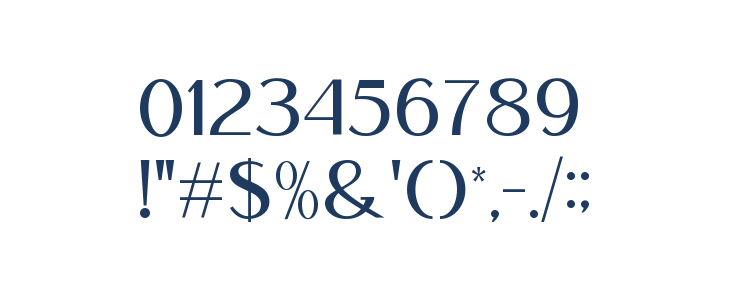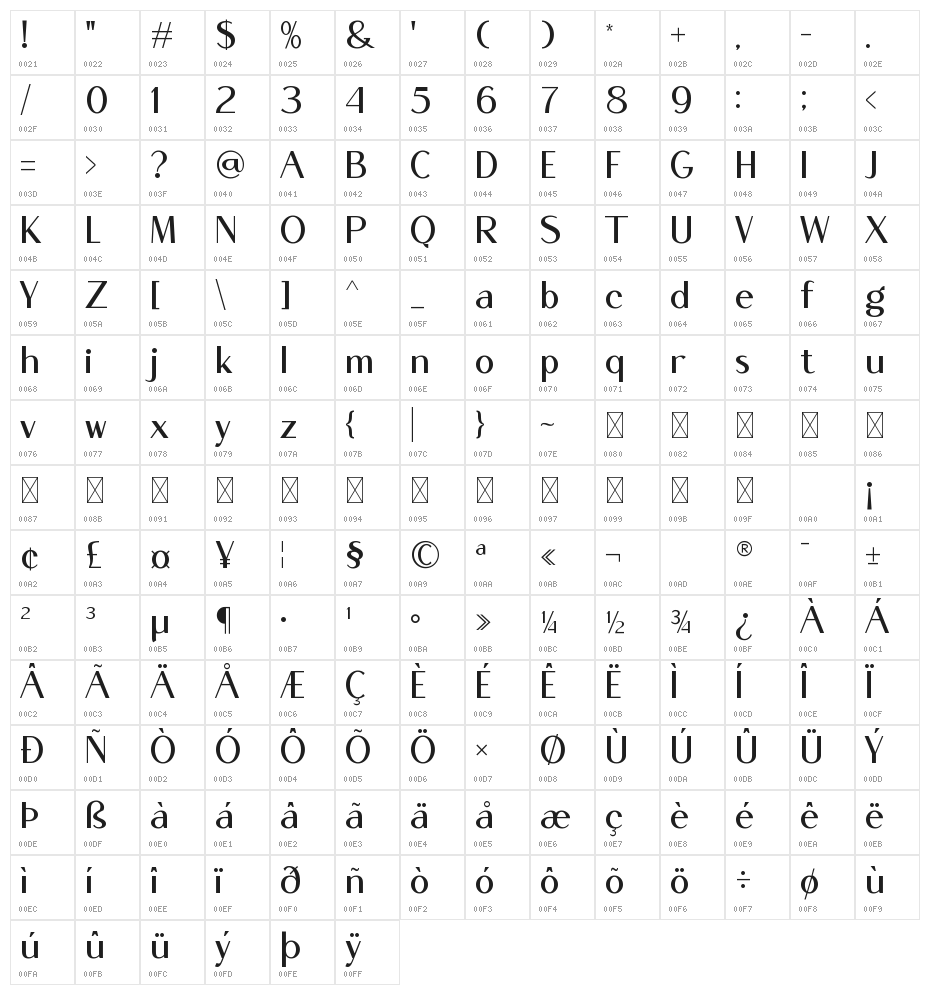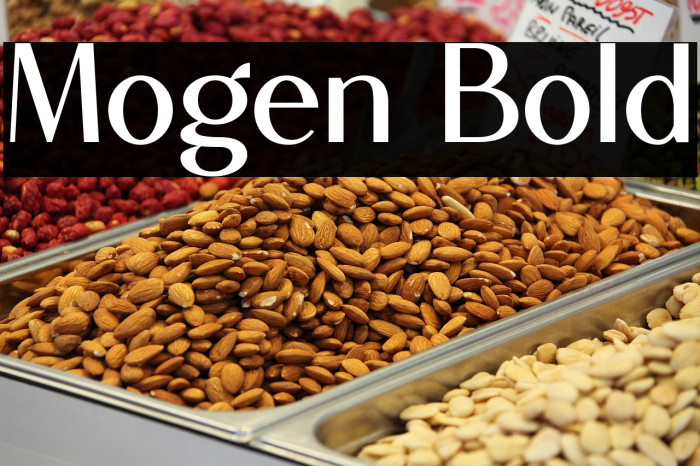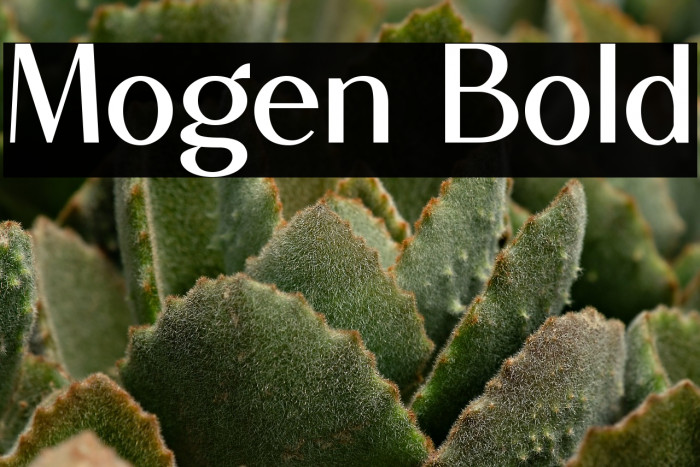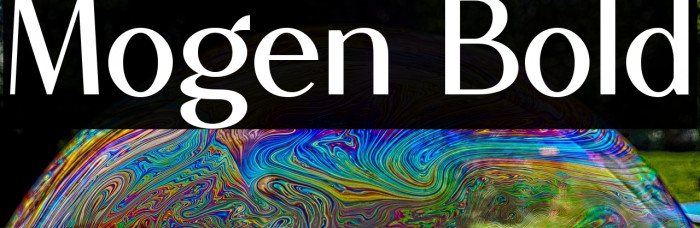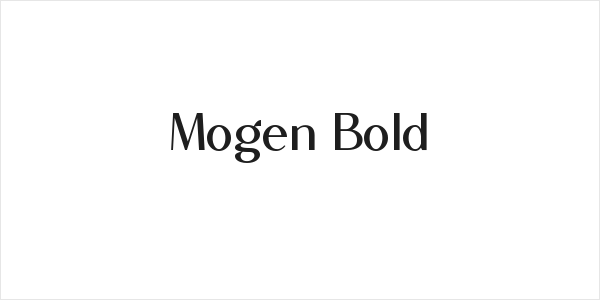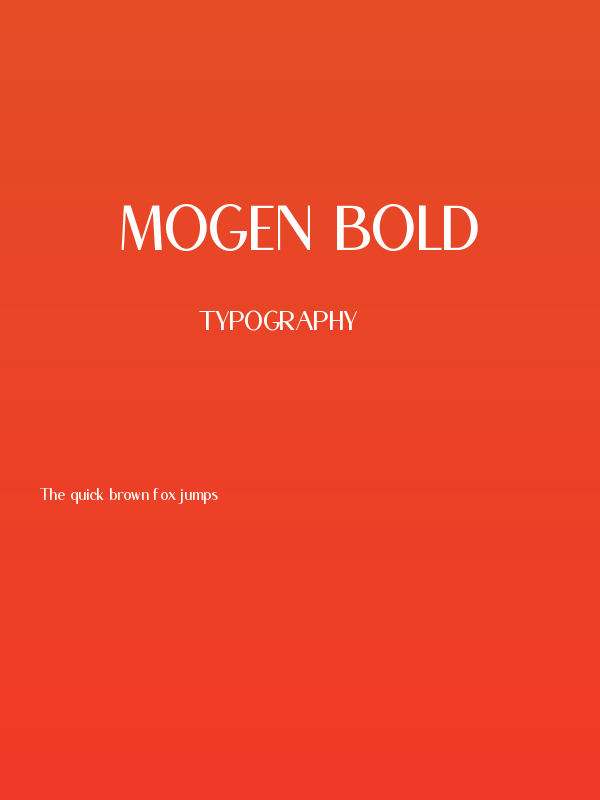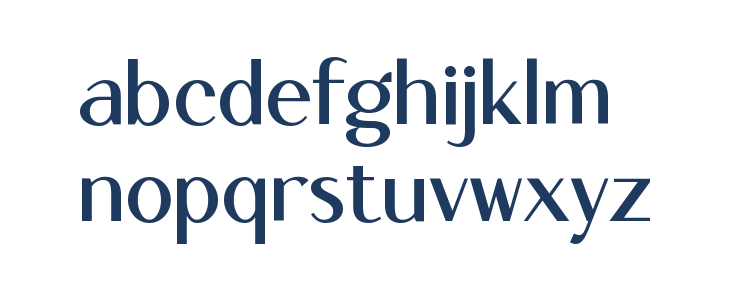
Mogen Bold Font
Mogen Bold Description
This font exhibits a modern and clean design with a bold weight, making it ideal for impactful statements. The characters are well-defined with a slight contrast in stroke thickness, providing a dynamic yet balanced appearance. The uppercase letters are tall and commanding, while the lowercase letters maintain a consistent and harmonious flow. The numerals are clear and easy to read, complementing the overall style. Special characters are distinct and integrate seamlessly with the rest of the typeface, enhancing its versatility.
| Use Case | Headlines, Logos, Advertising |
| Proposed Projects | Ideal for branding, headlines, advertising, and any project requiring a strong visual impact. |